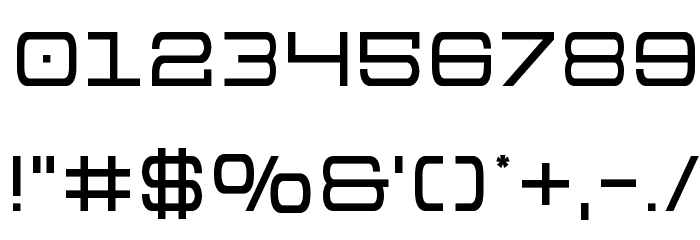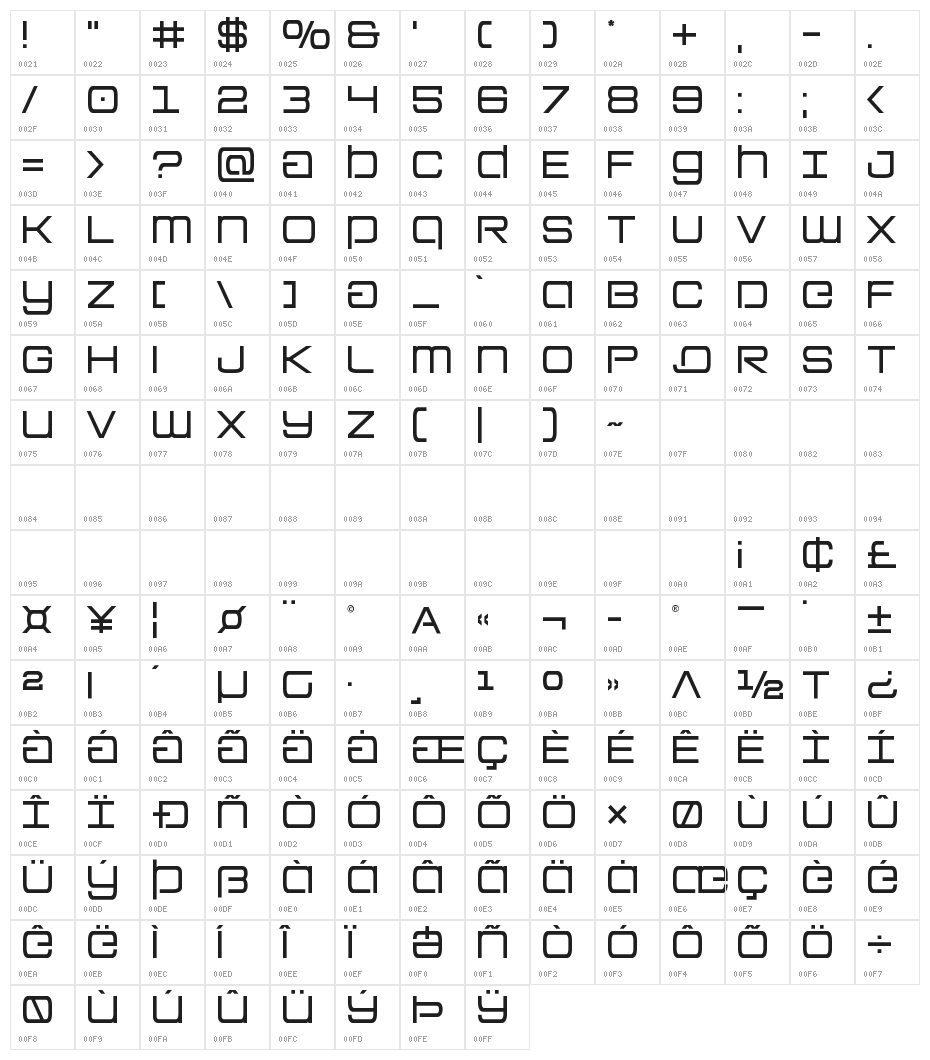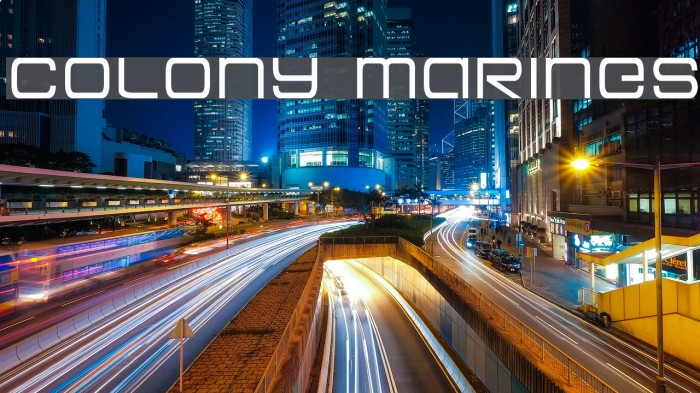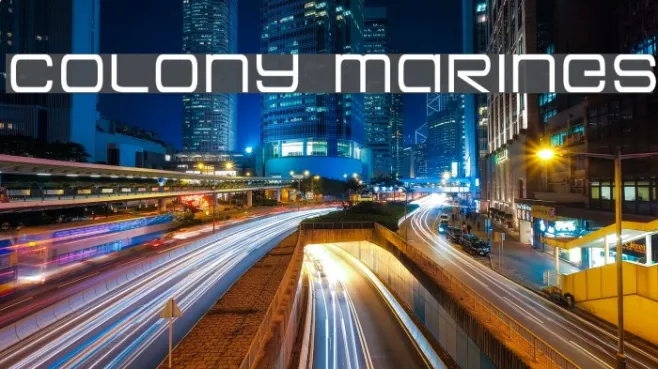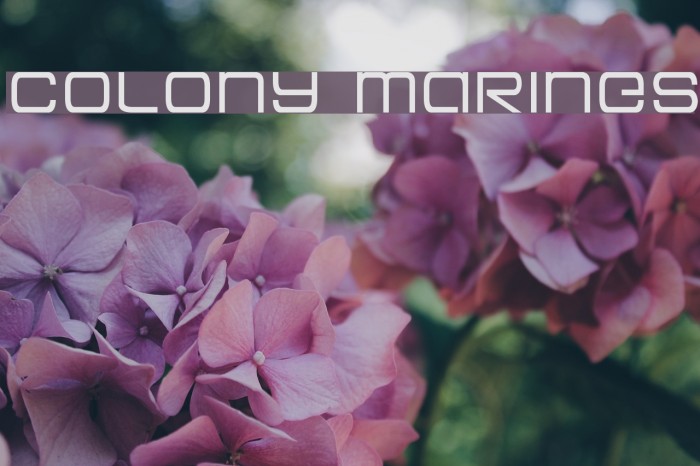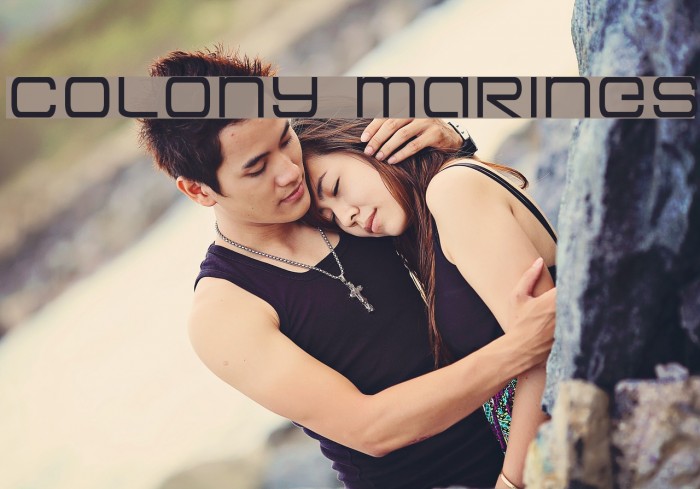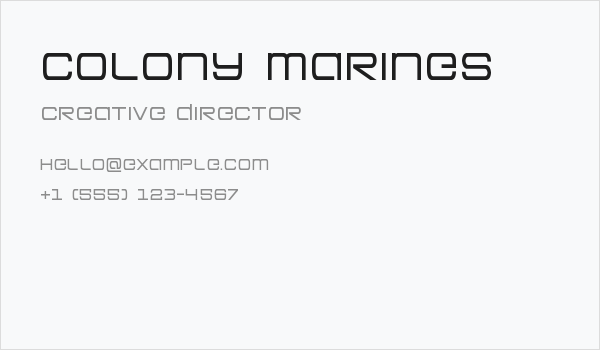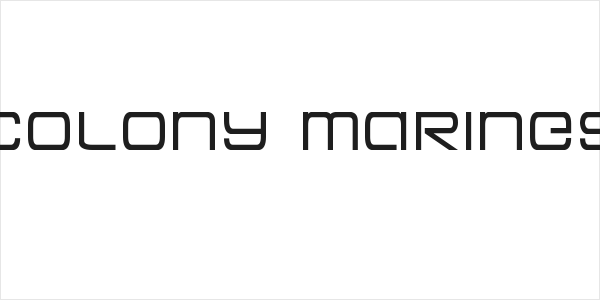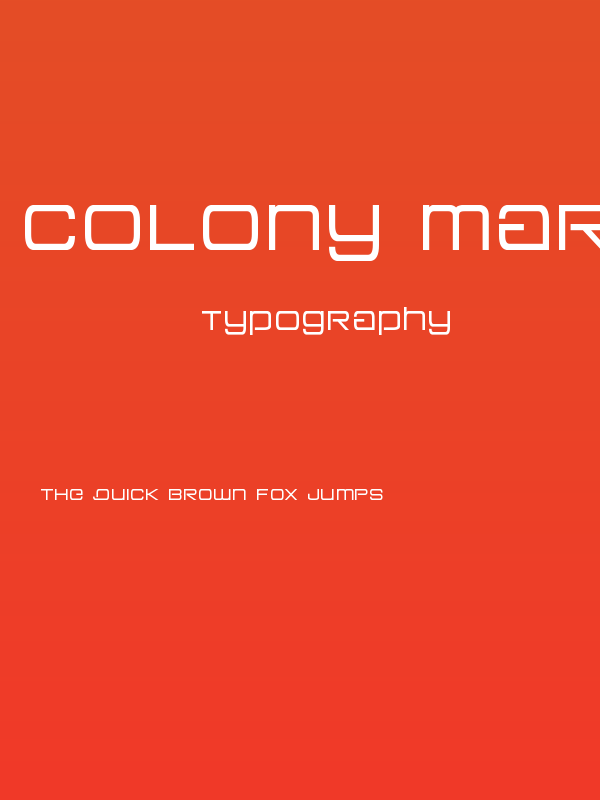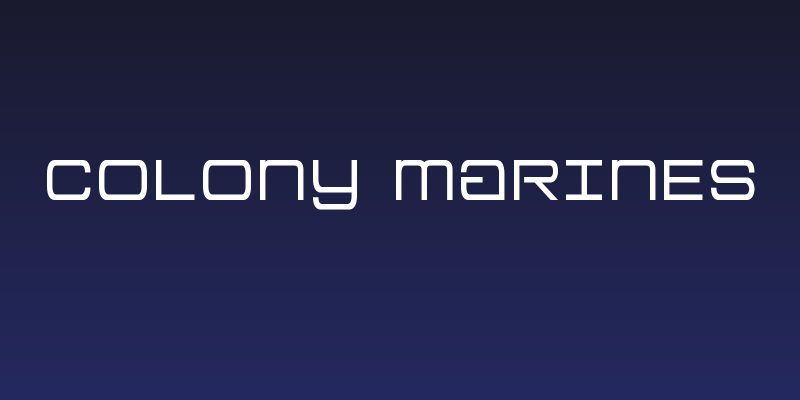
Colony Marines Font
Colony Marines Description
This font features a futuristic and geometric design, characterized by its clean lines and angular forms. The characters are constructed with a uniform stroke width, giving it a modern and sleek appearance. The uppercase and lowercase letters maintain a consistent style, with a focus on readability and simplicity. The numbers and special characters follow the same design principles, ensuring a cohesive look across all elements. The font's structure is slightly condensed, which adds to its compact and efficient aesthetic.
| Use Case | Headlines, Logos, Digital Interfaces |
| Proposed Projects | Ideal for technology branding, sci-fi themed projects, digital interfaces, and modern advertising. |